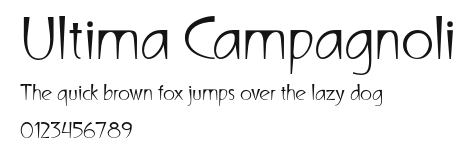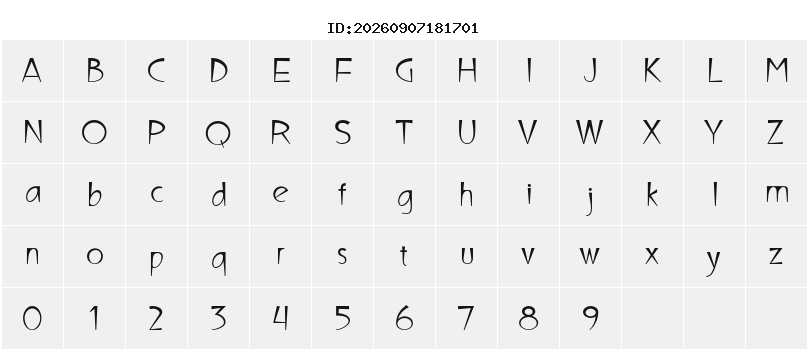
Ultima Campagnoli Preview
• Font Name: Ultima Campagnoli
• Font ID: ManuelCampagnoil: Ultima Campagnoli: 1998
• Full Font Name: UltimaCampagnoli
• PostScript Name: UltimaCampagnoli
• Designer: Manuel Campagnoil
• Manufacturer: Manuel Campagnoil
About Ultima Campagnoli.otf
Ultima Campagnoli.otf is a modern, elegant sans-serif font designed for ultimate readability and visual harmony. Perfect for branding, headlines, web design, and print materials.